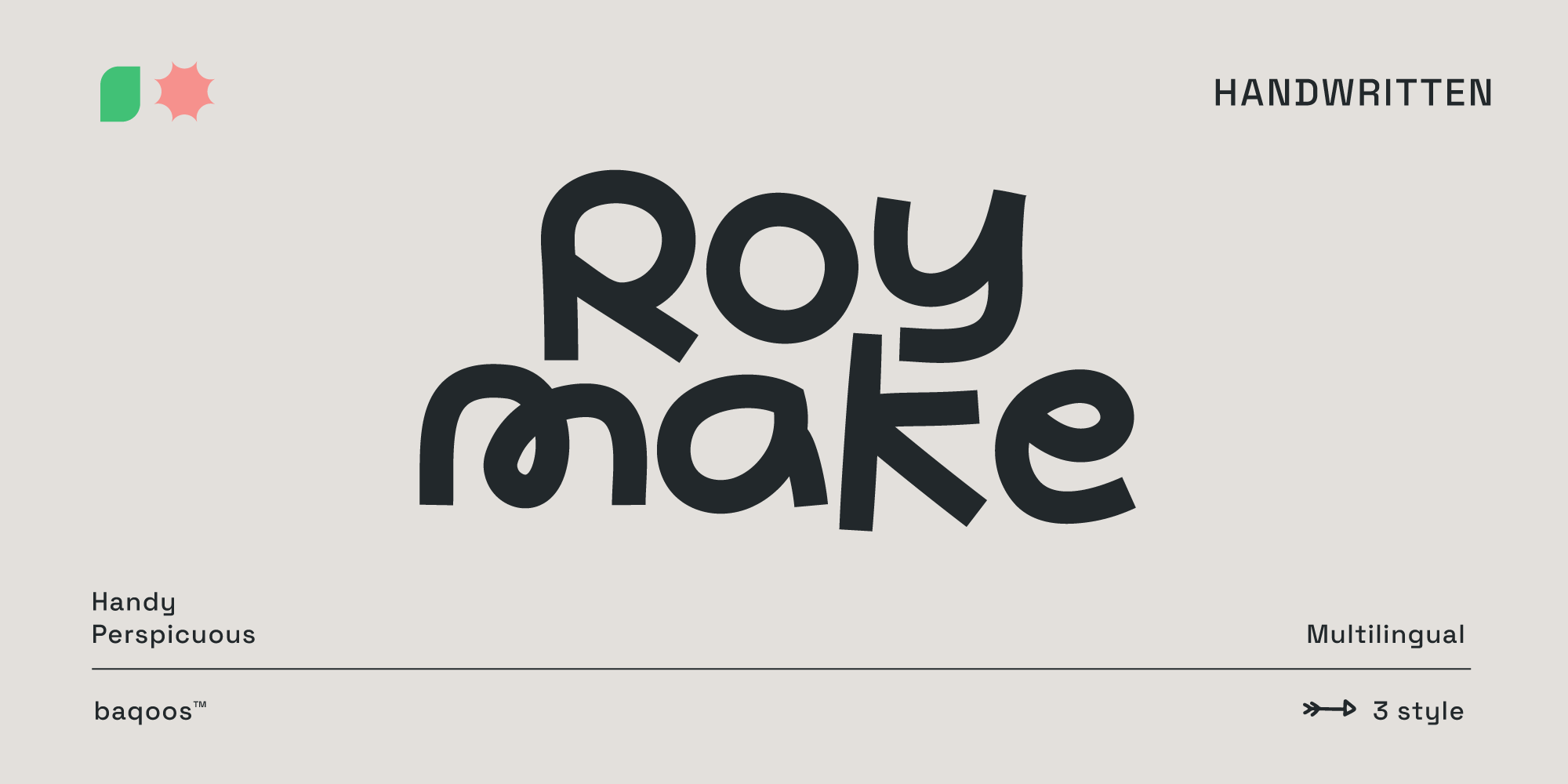
The Roy Make Font Free Download is an artistic and expressive typeface, making it an excellent choice for designs that demand personality, creative flair, and a handcrafted touch. This captivating font is perfectly suited for artistic branding, indie music artwork, blog headers, social media quotes, handmade product labels, and casual event invitations. Imagine it bringing a whimsical charm to a craft fair poster, providing a unique voice for a personal blog, or adding an authentic, hand-drawn feel to a custom stationery design. Its distinctive strokes and original forms ensure your message is delivered with warmth and an unforgettable artistic presence.
What makes Roy Make Font truly exciting is its ability to infuse designs with a sense of genuine creativity and individual character. It's not just a decorative font; it embodies an organic flow and a spontaneous spirit that makes it incredibly engaging. The charming irregularities and unique letter connections give it an authentic, personalized feel, as if each character was thoughtfully drawn by hand. Designers will appreciate how it instantly adds a bespoke, artistic quality to any project, making it ideal for designs that need to feel approachable, original, and visually inspiring.
The Roy Make Font family typically focuses on its unique, expressive style, often without a broad range of weights, as its strength lies in its singular artistic impact. While primarily a display or headline font, you might find a Regular and potentially a Bold option to provide subtle variations in visual presence. Many versions also come equipped with a rich set of alternates, swashes, and ligatures, offering extensive customization possibilities to create truly unique and fluid typographical compositions. These focused design features ensure that the Roy Make Font Free Download provides ample creative opportunities to make your designs sing with personality and an authentic, artistic charm.